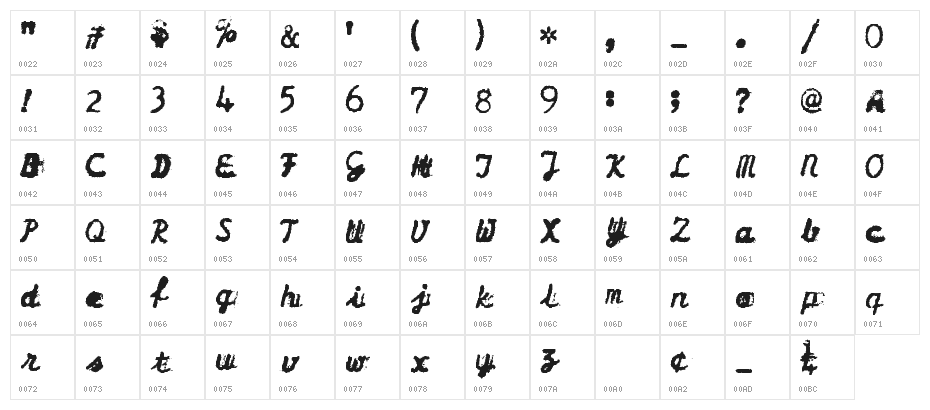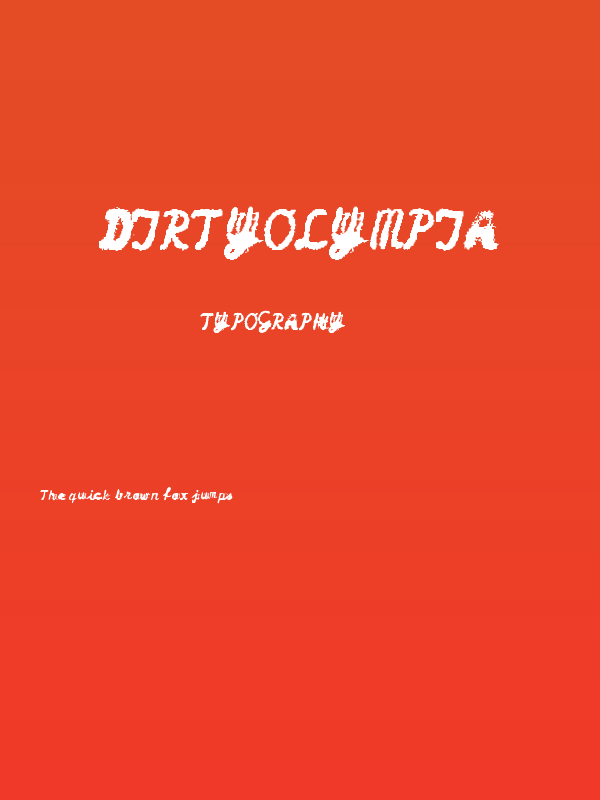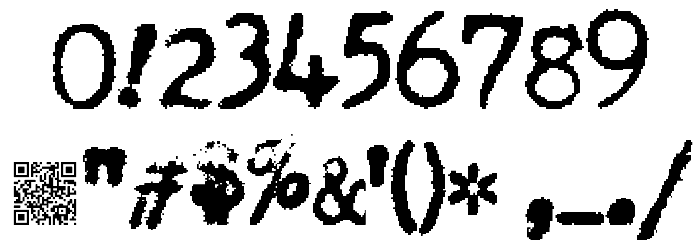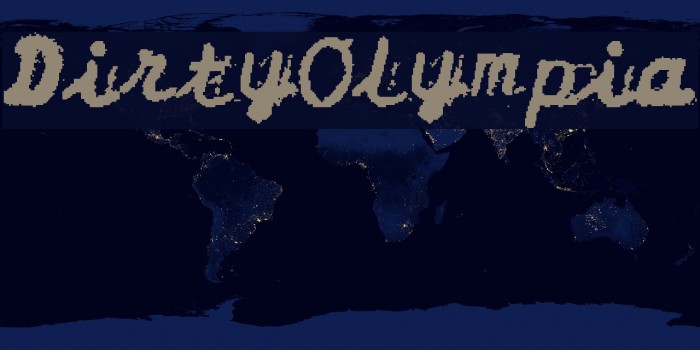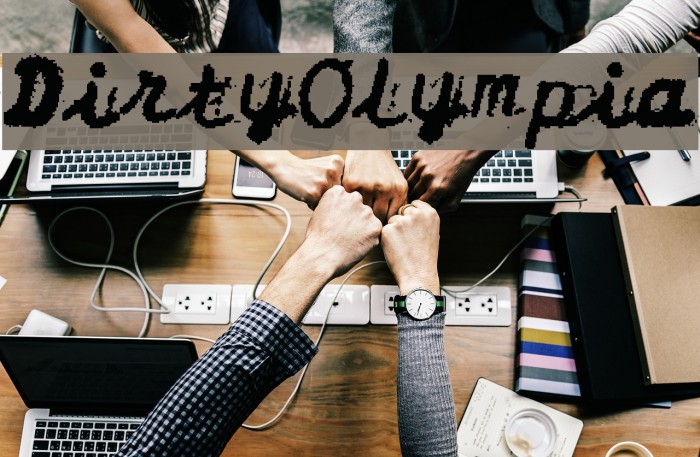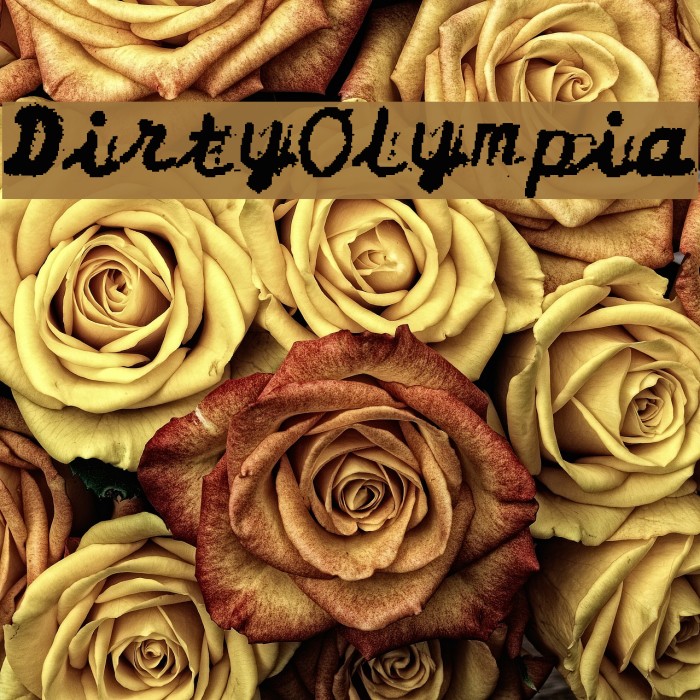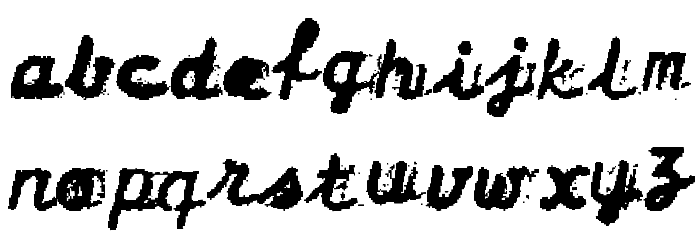
DirtyOlympia Font
This font features a bold and expressive style with a rough, textured appearance. The characters are designed with a hand-drawn aesthetic, giving them a unique, artistic flair. The uppercase letters are bold and prominent, while the lowercase letters maintain a consistent flow with a slightly more condensed form. Numbers and special characters follow the same textured style, ensuring a cohesive look across all glyphs. The font's irregular edges and dynamic strokes contribute to its distinctive, eye-catching appearance, making it ideal for creative and unconventional design projects.
| Overall Style | Artistic, Expressive |
| Proposed Projects | Ideal for posters, album covers, artistic branding, and creative digital artwork. |